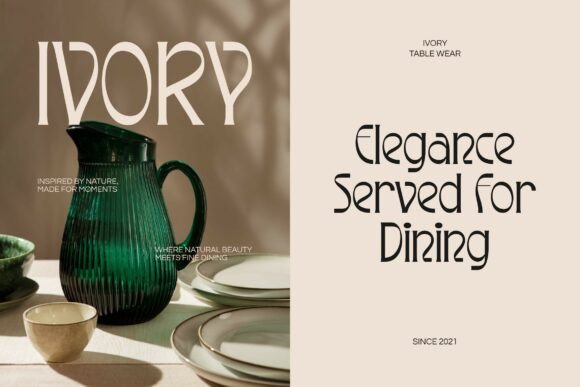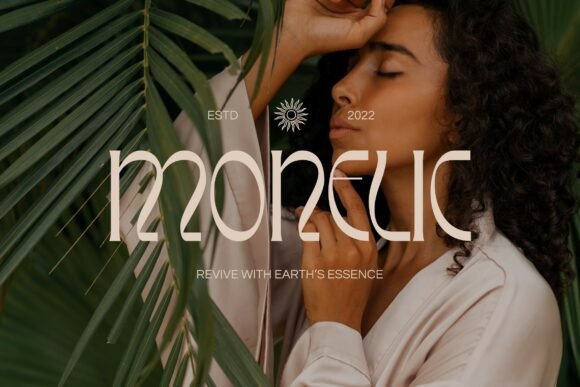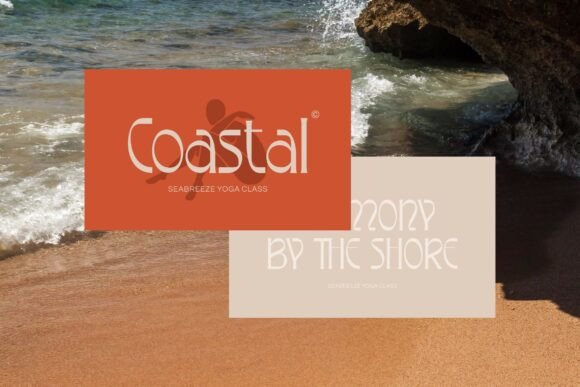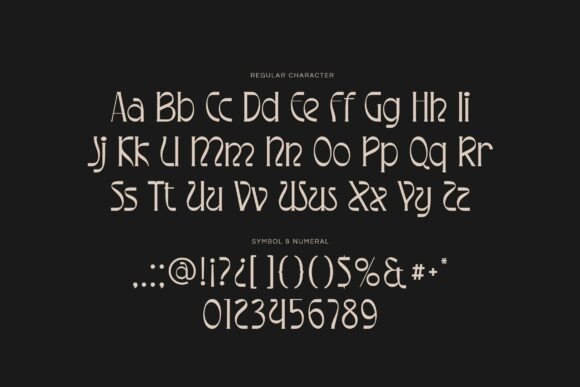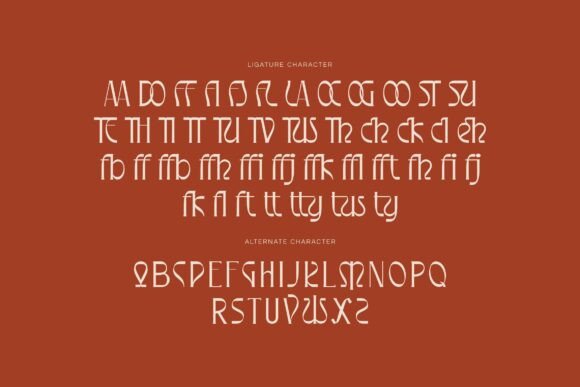
The Birth of a New Era in Typography
Imagine strolling along a seaside promenade, the warm sun on your skin, the sound of waves gently lapping at the shore. The rhythmic motion of the ocean has a way of sparking creativity, and for designers, it’s a constant source of inspiration. It’s in these moments of serenity that ideas begin to take shape, and the boundaries of art and design blur.
For those who crave a typography that embodies the essence of coastal luxury, Exotisal Font is the answer. This modern display font seamlessly blends artistic curves with geometric structure, creating a unique and elegant aesthetic that’s both refined and bold. Whether you’re crafting a logo, designing a menu, or creating a book cover, Exotisal Font is the perfect tool to help you convey your brand’s individuality and sophistication.
Exotisal Font Key Features
- Font Size: The font family includes 6 weights, ranging from Thin to Extra Bold, providing flexibility for various design applications.
- Unique Characteristics: Exotisal Font features a unique blend of exotic and elegant styles, with intricate details and flourishes that add a touch of sophistication to any design.
Exotisal Font Review
Overall, I found the Exotisal Font to be a visually stunning and versatile choice for a wide range of design projects. ✨ Its unique blend of exotic and tropical elements creates an eye-catching effect that can add a touch of elegance and sophistication to any design.
The font’s high level of customization options makes it suitable for a variety of applications, from logos and branding to advertising and packaging. The ability to adjust the weight, width, and even the individual elements of the font, gives designers the flexibility to tailor it to their specific needs.
- ✨ Unique and exotic design elements
- ✨ High level of customization options
- ✨ Suitable for a wide range of design applications
- ⚠️ Limited availability of some customization options
- ⚠️ Can be overwhelming for designers with limited experience
Overall, I would recommend the Exotisal Font to designers looking for a unique and versatile choice for their projects. However, I would caution those with limited experience to approach with caution and be prepared to invest time in learning how to effectively use this font.
Tips for Getting the Most Out of Exotisal Font
Here are some tips to help you get the most out of Exotisal Font:
- Use Exotisal Font sparingly to create a bold and eye-catching effect.
- Combine Exotisal Font with other fonts to create a unique and exotic typography.
- Experiment with different font sizes and styles to achieve the desired look.
Exotisal Font is perfect for:
- Creating eye-catching headings
Alternatives to Exotisal Font for Designers
Pacifico is a beautiful, elegant script font that is perfect for creating a luxurious and sophisticated look. It features a flowing, handwritten feel that is ideal for use in branding, packaging, and advertising. Pacifico is a great alternative to Exotisal Font for designers who want to add a touch of sophistication and elegance to their designs.
Comparison to Exotisal Font: Pacifico has a more refined and elegant feel compared to Exotisal Font, which is more playful and quirky. While Exotisal Font is great for creating a fun and playful atmosphere, Pacifico is better suited for creating a more upscale and sophisticated look.